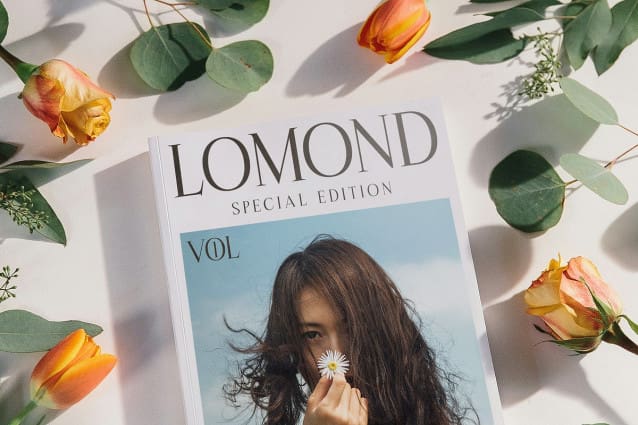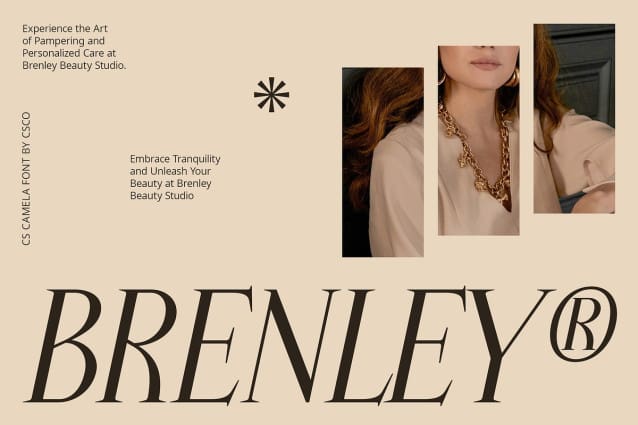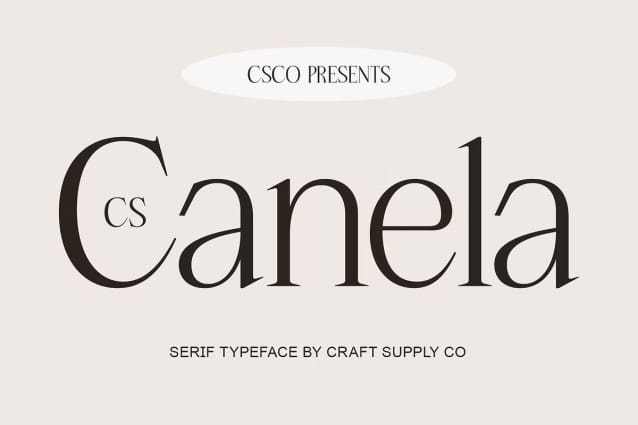
CS Canela Font
CS Canela Font is a modern serif font that exudes elegance and sophistication, perfect for elevating your design projects with a refined touch. Its stylish design enhances professionalism and visual appeal, making it an excellent choice for various applications.
With its polished and classy presentation, CS Canela is ideal for business cards and branding materials. The font’s refined style ensures that your brand stands out with a sense of professionalism and elegance.
CS Canela’s sophisticated design makes it suitable for a wide range of design projects. Whether you’re working on editorial layouts, luxury packaging, or promotional materials, this font adds a touch of class and sophistication.
Choose CS Canela to bring an elegant and professional look to your designs. Its modern serif style ensures a polished and classy presentation, making it the perfect choice for any project that requires a touch of sophistication.